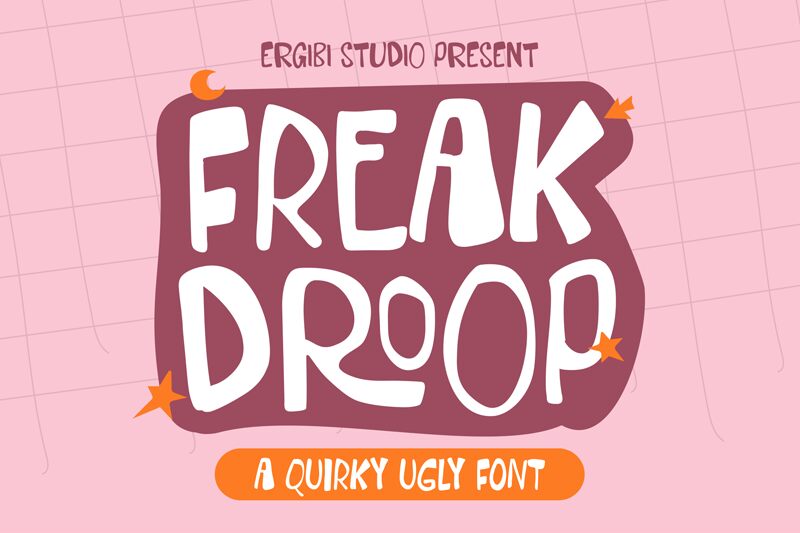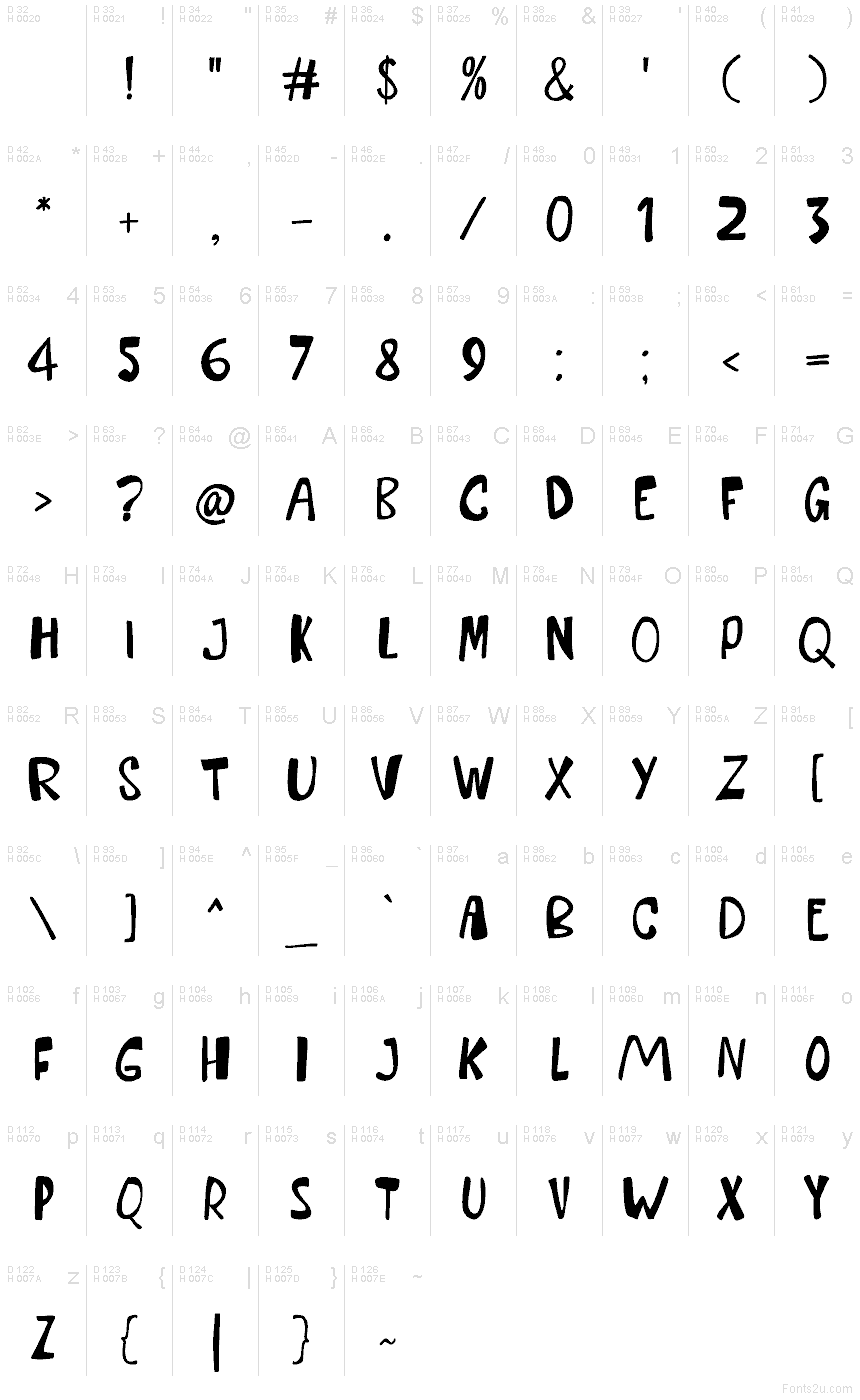
Freak Droop
Freak Droop font by Riyadh Rahman is a free cartoon display typeface with letters that look like they’re melting right off the page. The chunky, inky strokes wobble and sag in all the right places, like hand-drawn slime on a comic-book cover. Its uneven rhythm and playful droop give headlines a goofy horror edge—more mischievous than scary, like a late-night monster movie marathon for kids.
Using Freak Droop, you can instantly set the tone for Halloween posters, spooky kids’ book covers, slime-themed party invites, YouTube thumbnails, stickers, and bold merch graphics. This free font shines when you keep it big and loud, letting the drippy shapes stay legible and expressive. For supporting text, pair it with a clean rounded sans serif to balance its messy, cartoon energy without killing the fun.